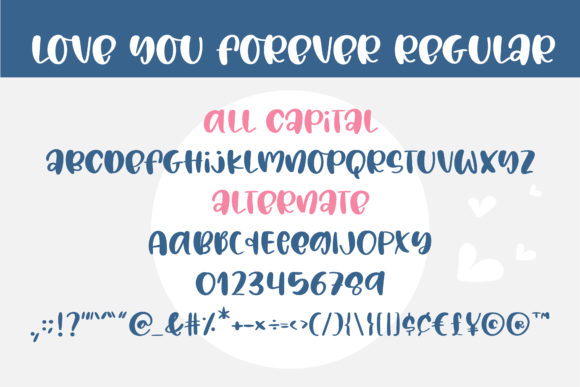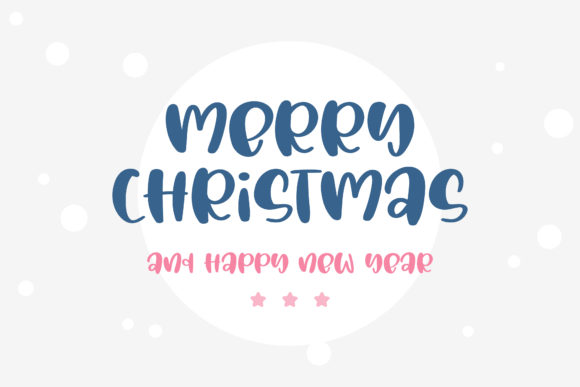
Love You Forever Font
db-ku.com - Script & Handwritten -- Love you forever is a bold and fun handwritten font. Its natural and unique style makes it incredibly fitting to a large pool of designs. The only limit is your imagination!